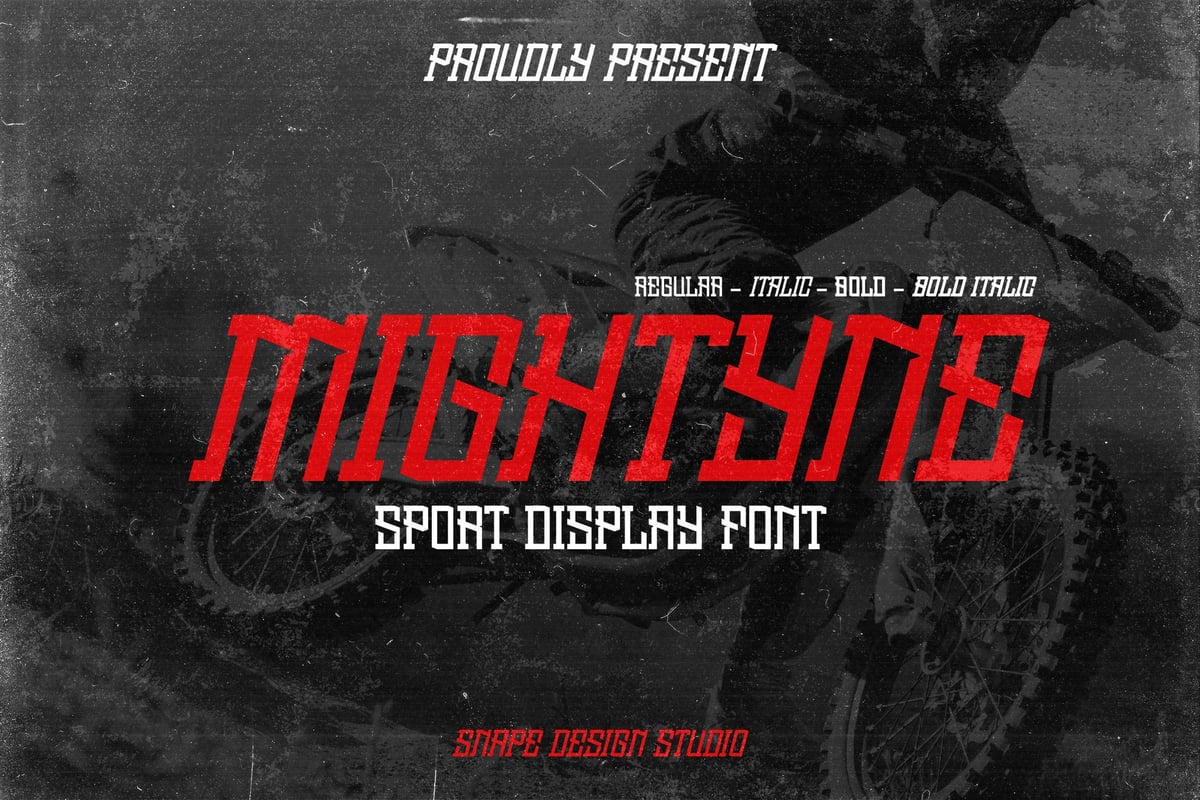
Mightyne - Sport Font
Make your sports-inspired projects stand out with Mightyne, a powerful display font designed to command attention. Mightyne delivers the bold, vibrant energy your athletic designs demand. This versatile typeface brings strength and impact to any project requiring a commanding presence. Perfect for sport design, team branding, jersey lettering, league logos, movie titles, documentaries, films, posters, games, book covers, headlines, and countless other applications where you need typography that ...